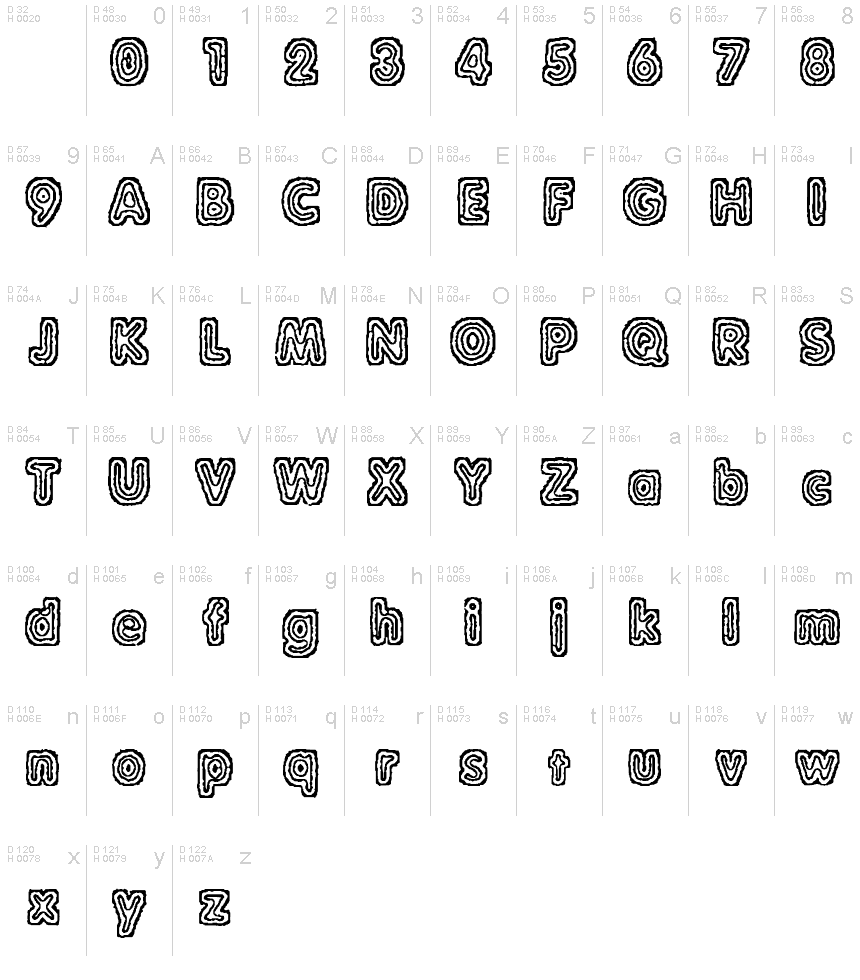
Raydiate BRK
Raydiate BRK, from the creative minds at ÆNIGMA FONTS, exudes a raw energy with its eroded, extra-bold appearance that captures the viewer's attention. This display font from the Raydiate family boasts a distinctive style characterized by its rugged texture and robust form. Its assertive and weathered contours make it an excellent choice for projects that require a touch of grit and personality.
The aesthetic appeal of Raydiate BRK lies in its ability to convey a sense of history and authenticity. Balancing visual impact with legibility, this typeface is ideal for bold headings, standout logos, edgy editorial layouts, and any creative endeavor that demands an unrefined yet commanding presence. Embrace the unique character of Raydiate BRK to infuse your designs with an unforgettable typographic flair.